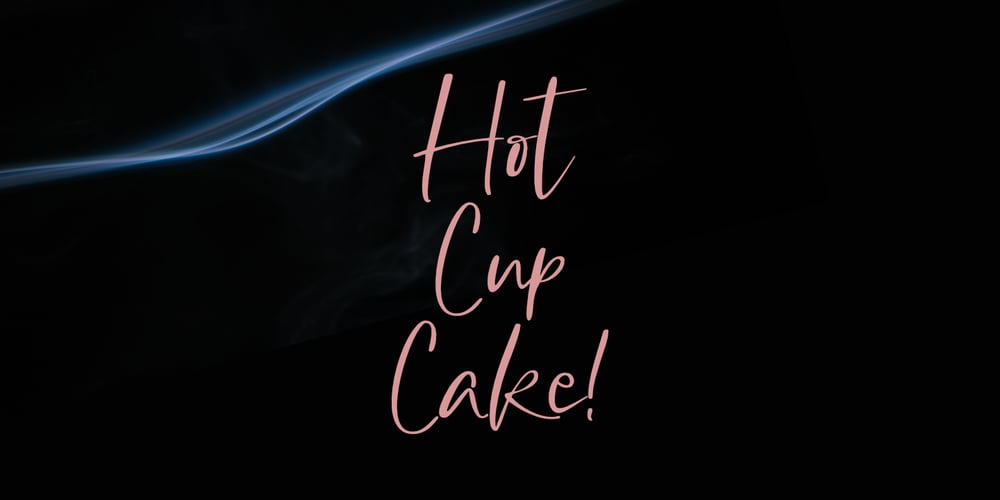
Hot Cup Cake
Hot Cup Cake font
Hot Cup Cake Font Family was designed by Nurul Hidayani and published by Olivetype. Hot Cup Cake contains 1 styles and family package options. Hot Cup Cake is a relaxed, fashionable and delicate script font. It looks beautiful on a variety of designs requiring a personalized style, such as wedding invitations, thank you cards, weddings, greeting cards, logos and so on.Hot Cup Cake font contains is supporting 66 languages, which includes: Afrikaans Albanian Catalan Danish Dutch English Estonian Finnish French German Italian Norwegian Portuguese Spanish Swedish Zulu.